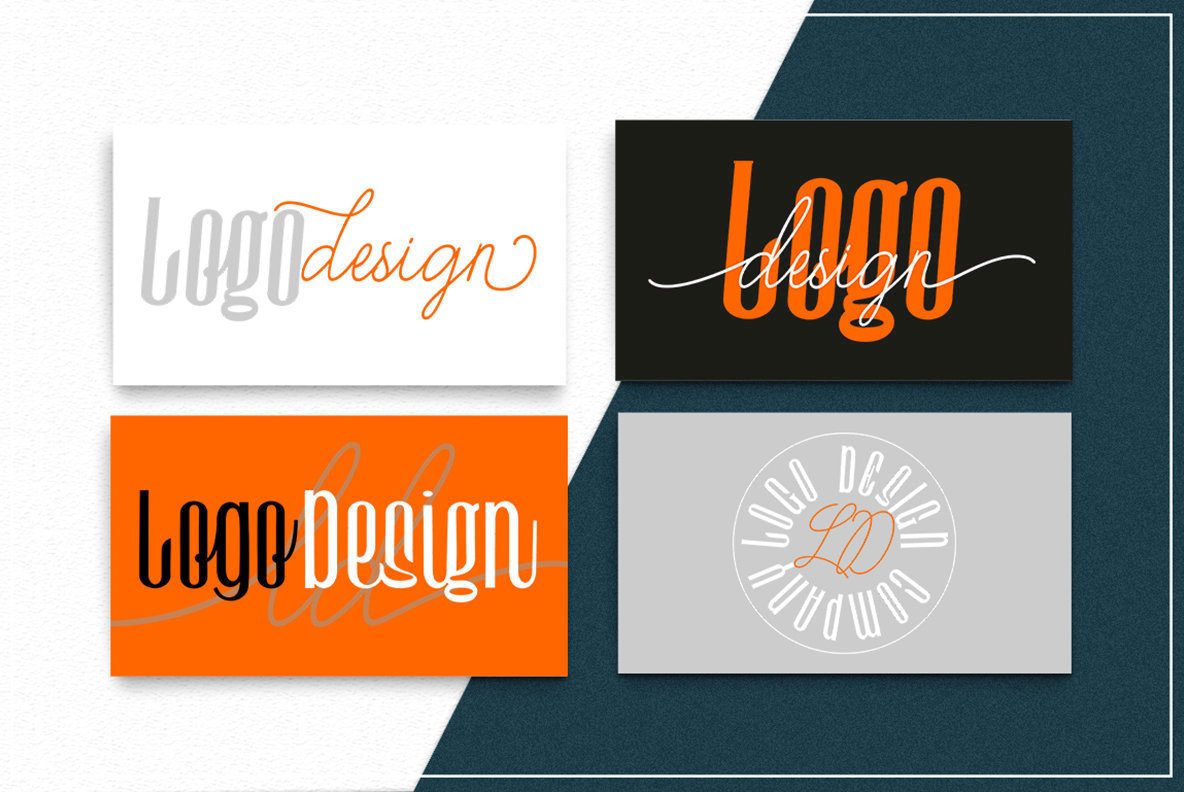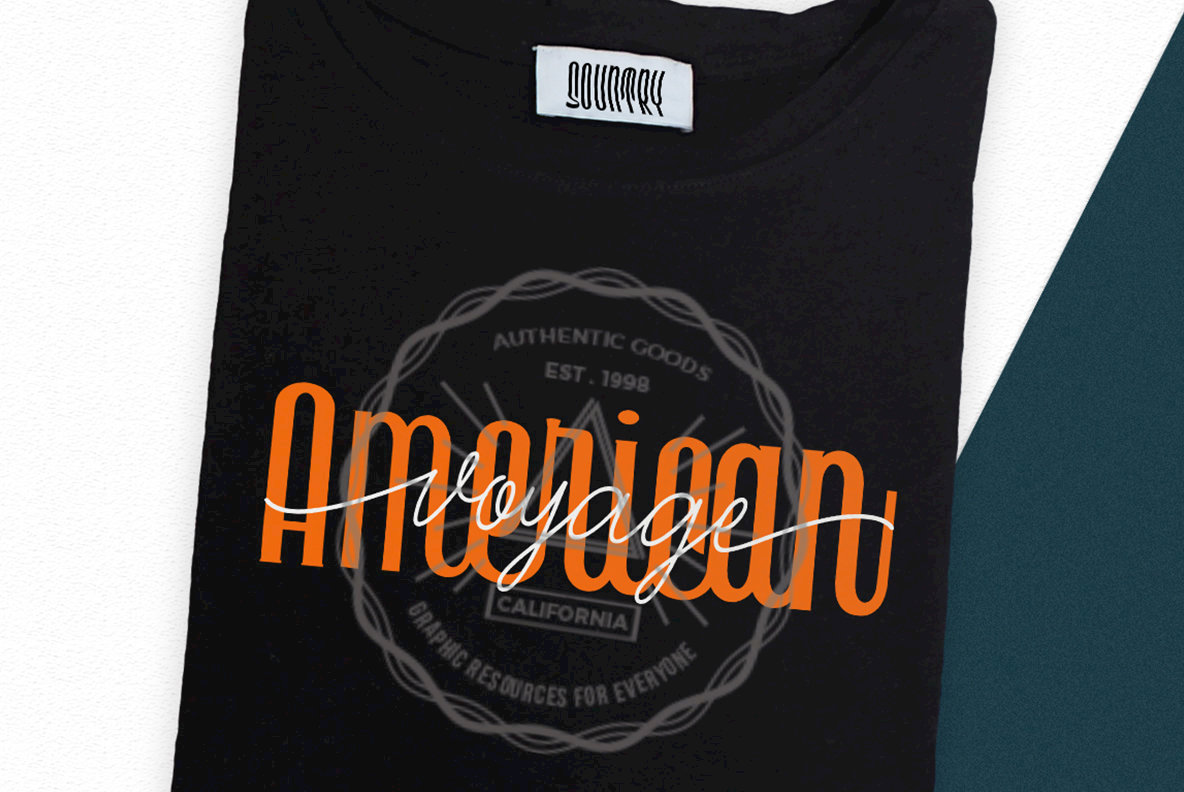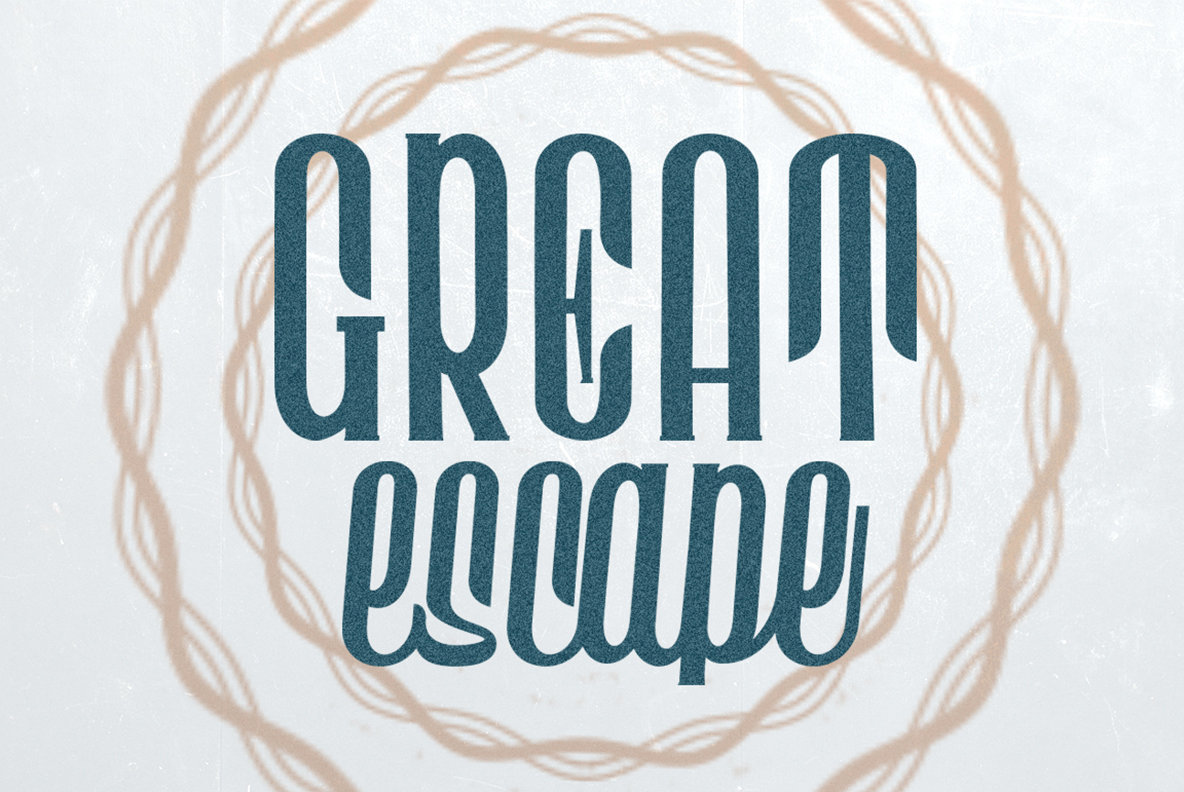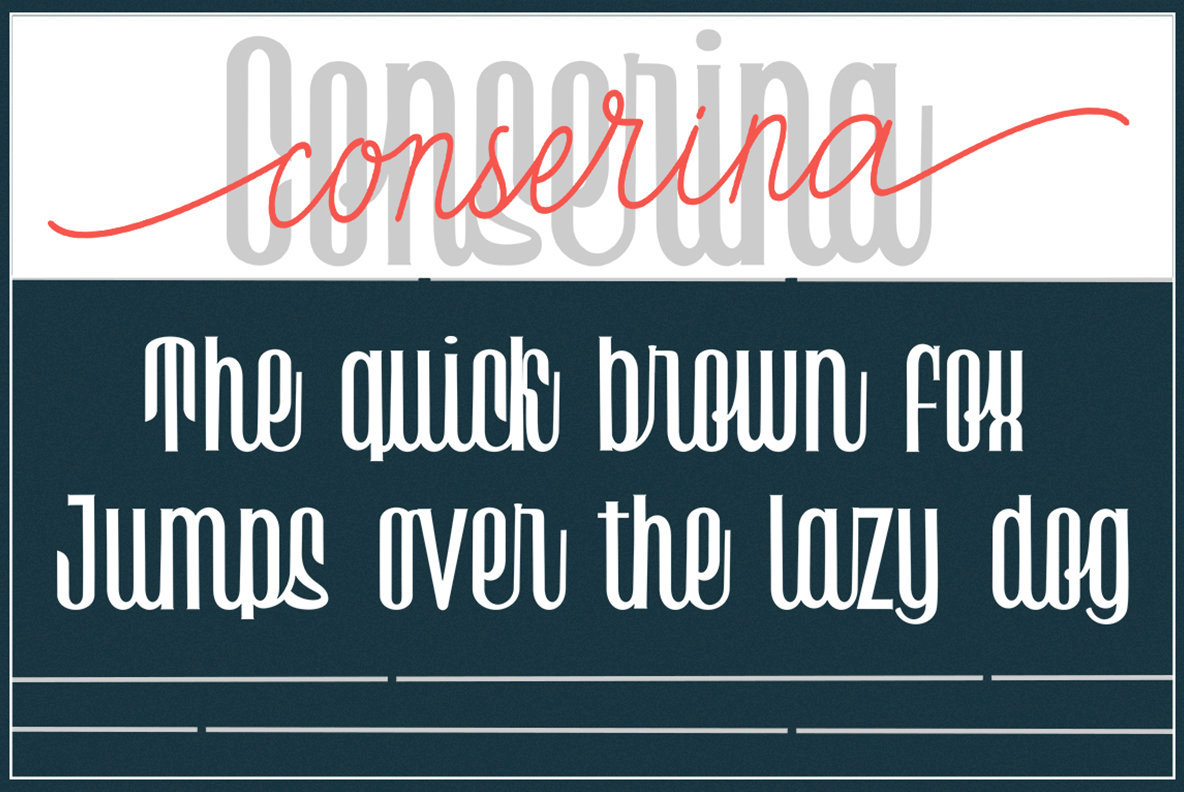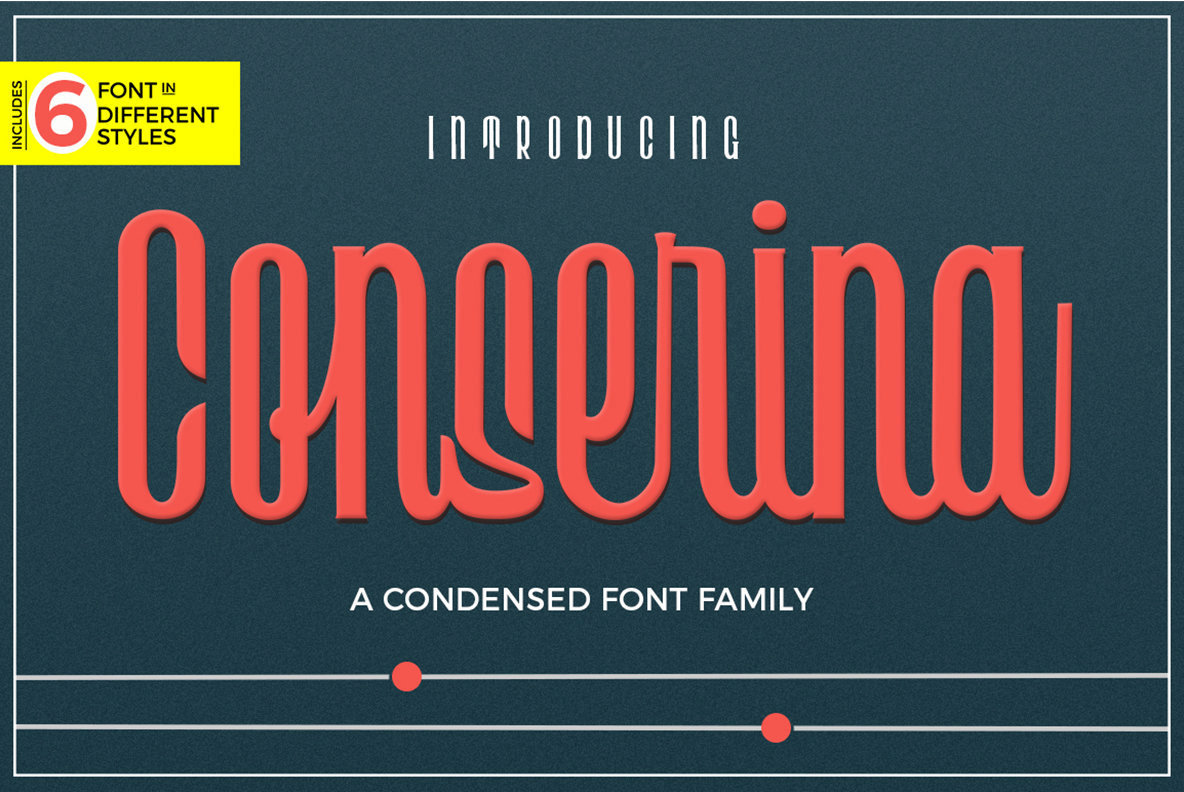
Conserina Font
A powerful and beautiful condensed sans serif display typeface. It brings charming curves and satisfying patterns to traditional condensed fonts. It’s designed for impact, without sacrificing style or legibility. It looks especially stunning in large scale, although it still carries a punch at smaller point sizes. It’s born to be a blessing for designers and viewers alike!